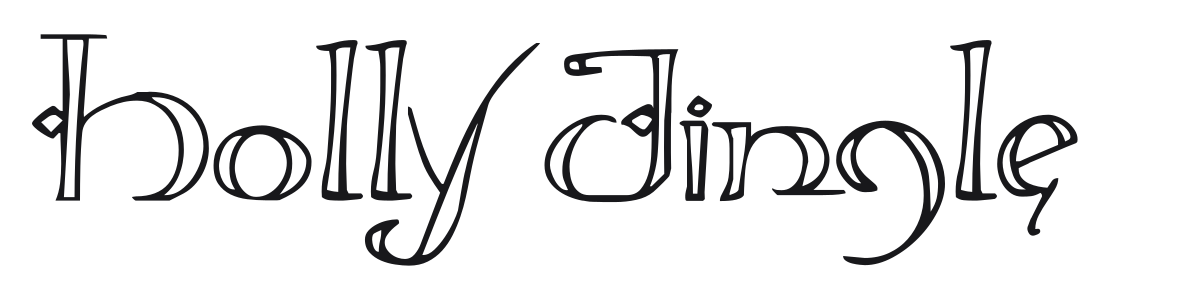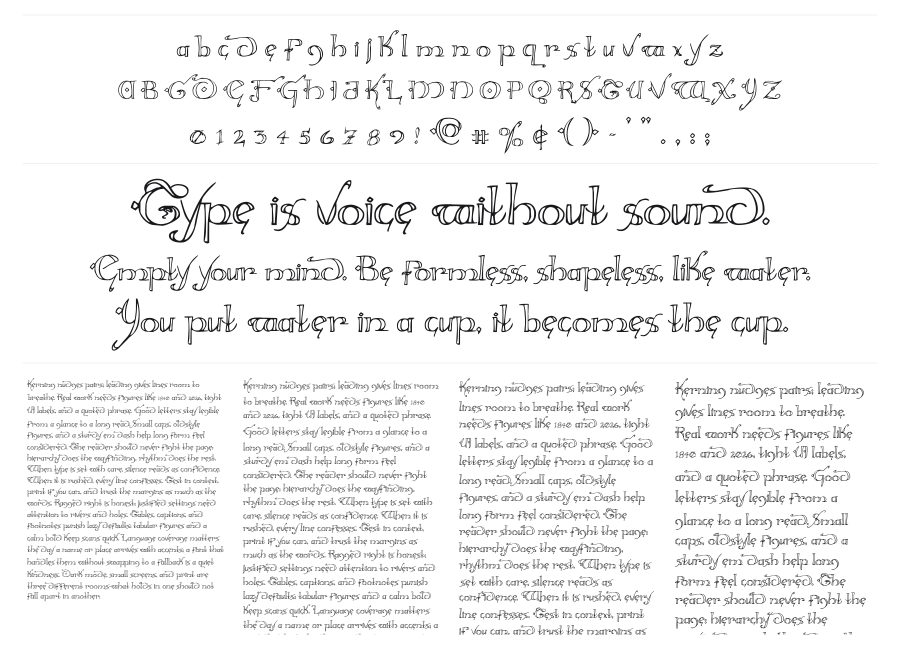
Holly Jingle
Holly Jingle is a fantasy display font by Iconian Fonts with sweeping, elvish-style outlines and flowing calligraphic curves. The thin outline construction and dramatic arcing strokes give it a mystical, almost Tolkien-esque quality that works well for holiday, gaming, or fantasy-themed headlines. It comes in an unusually broad family of 18 variants including condensed, expanded, italic, 3D, and oblique cuts.